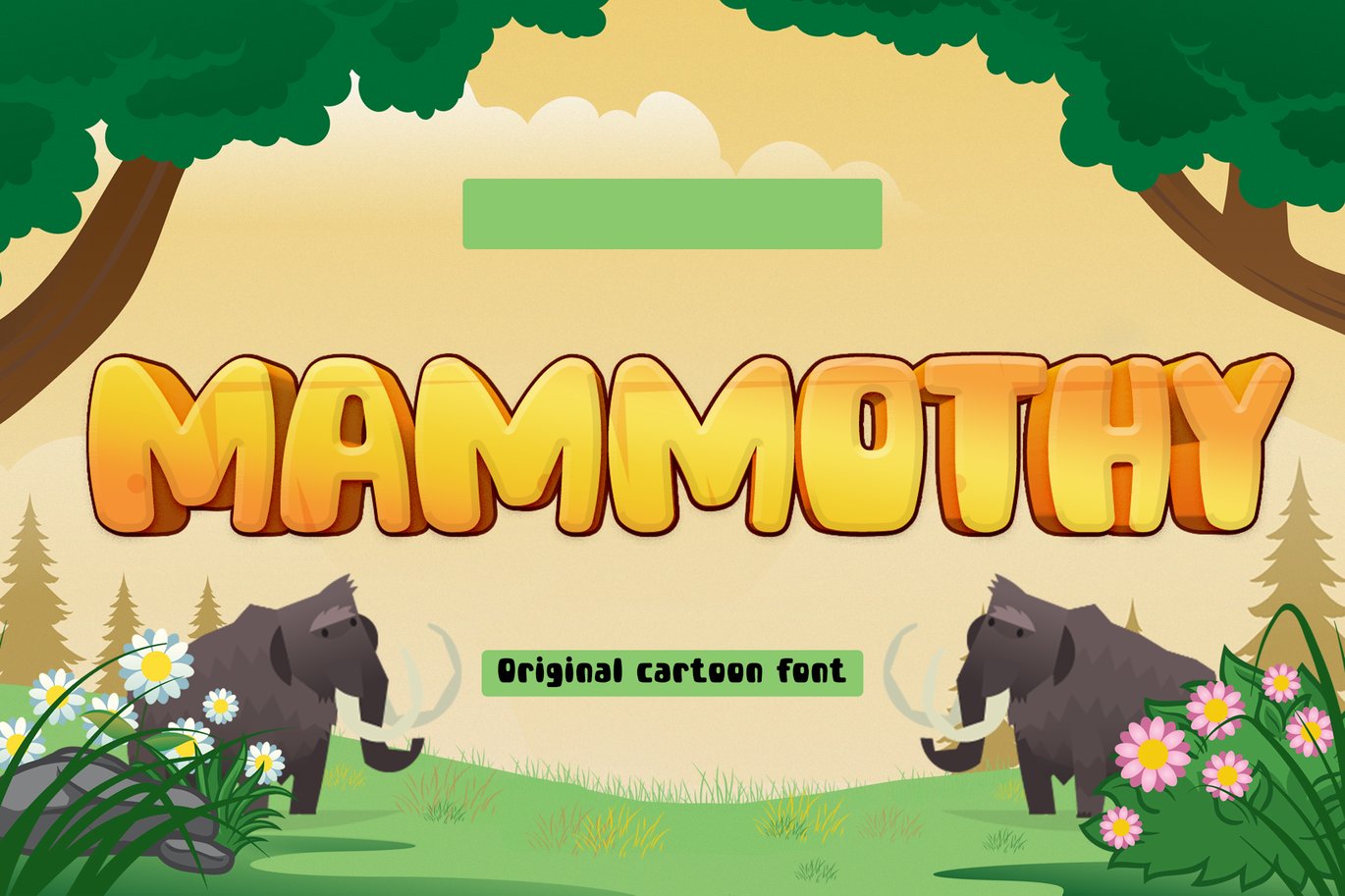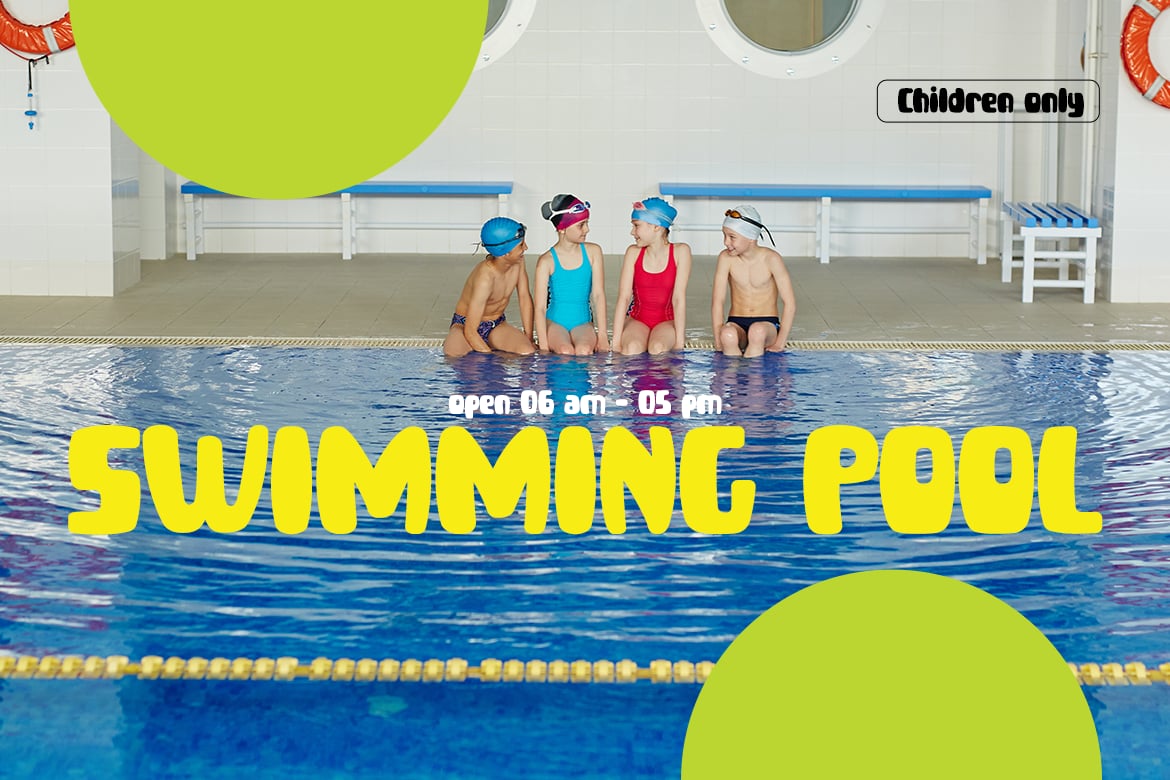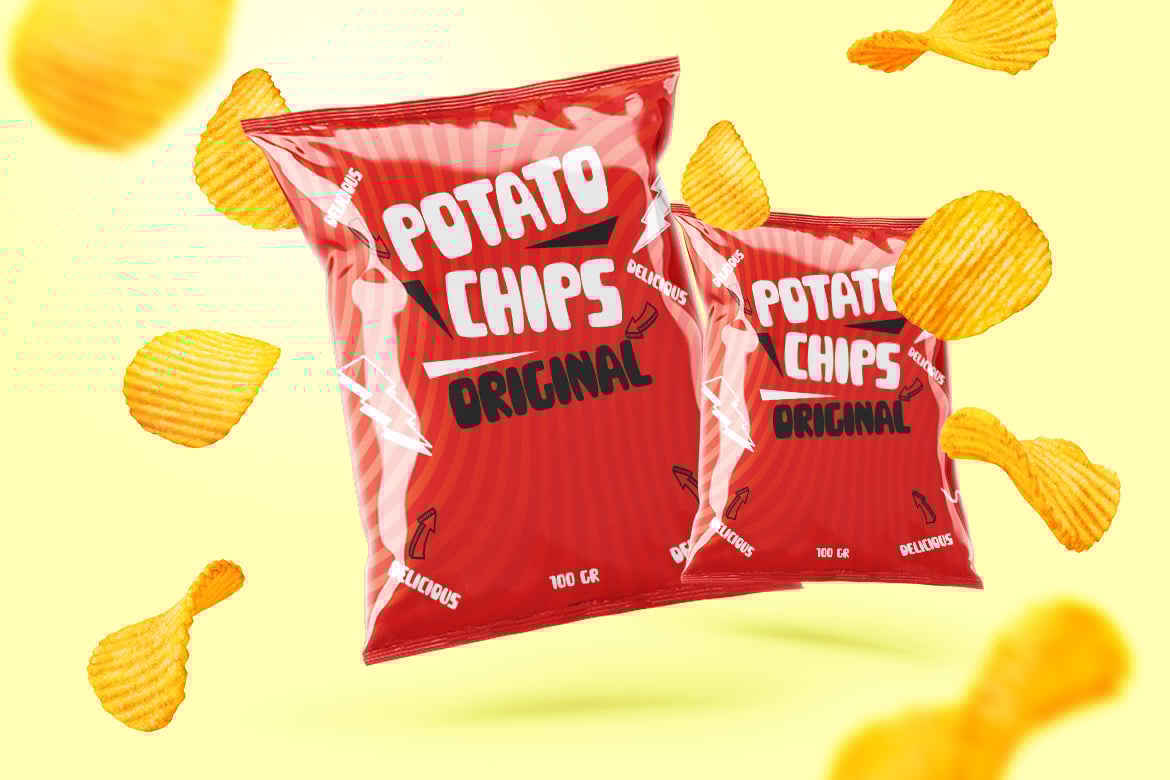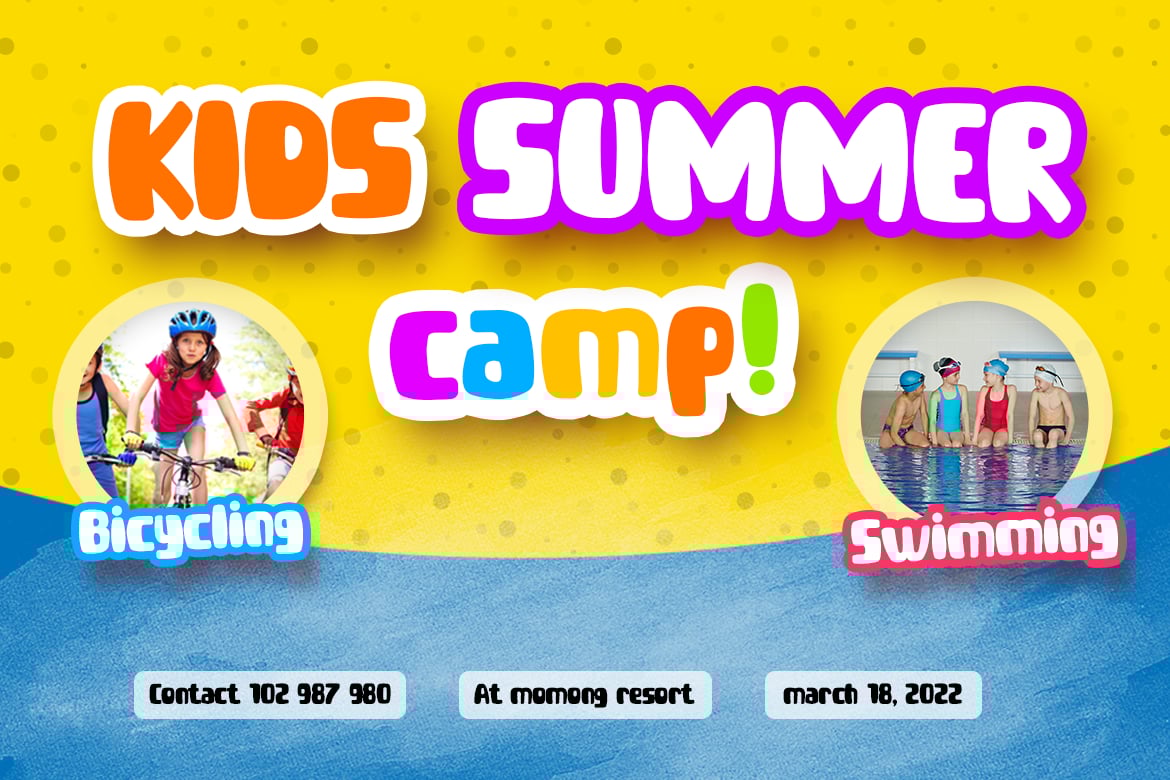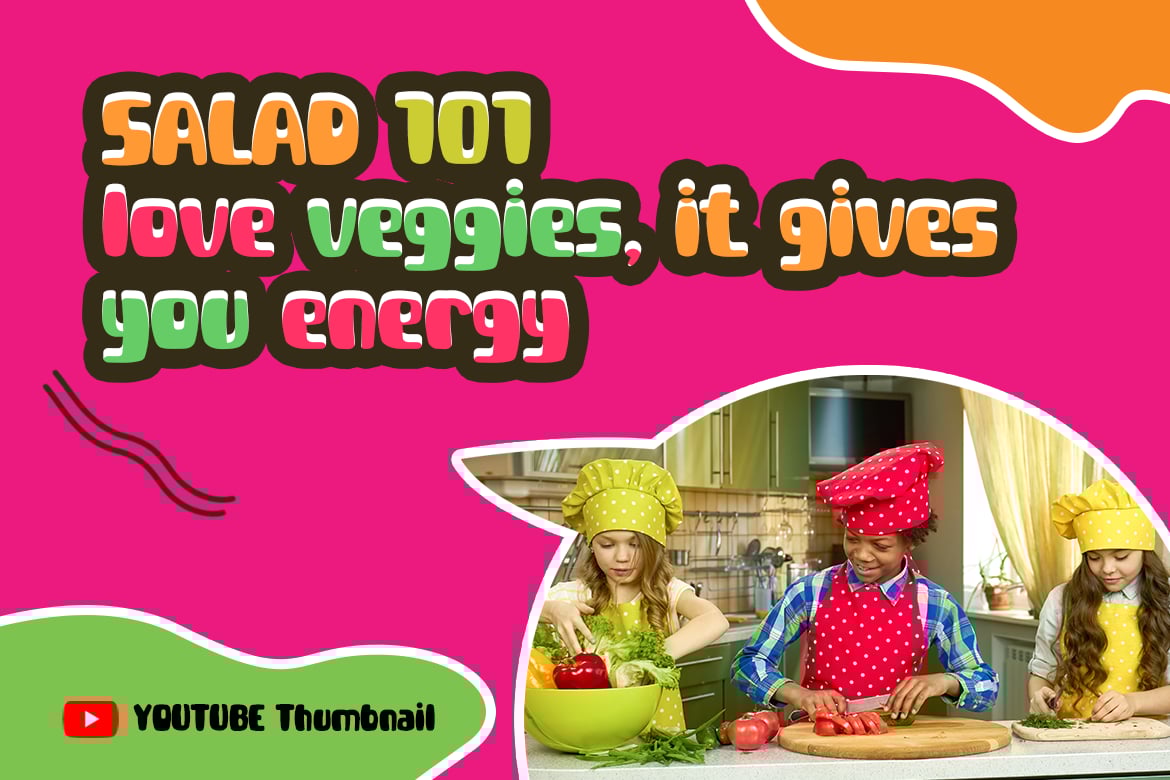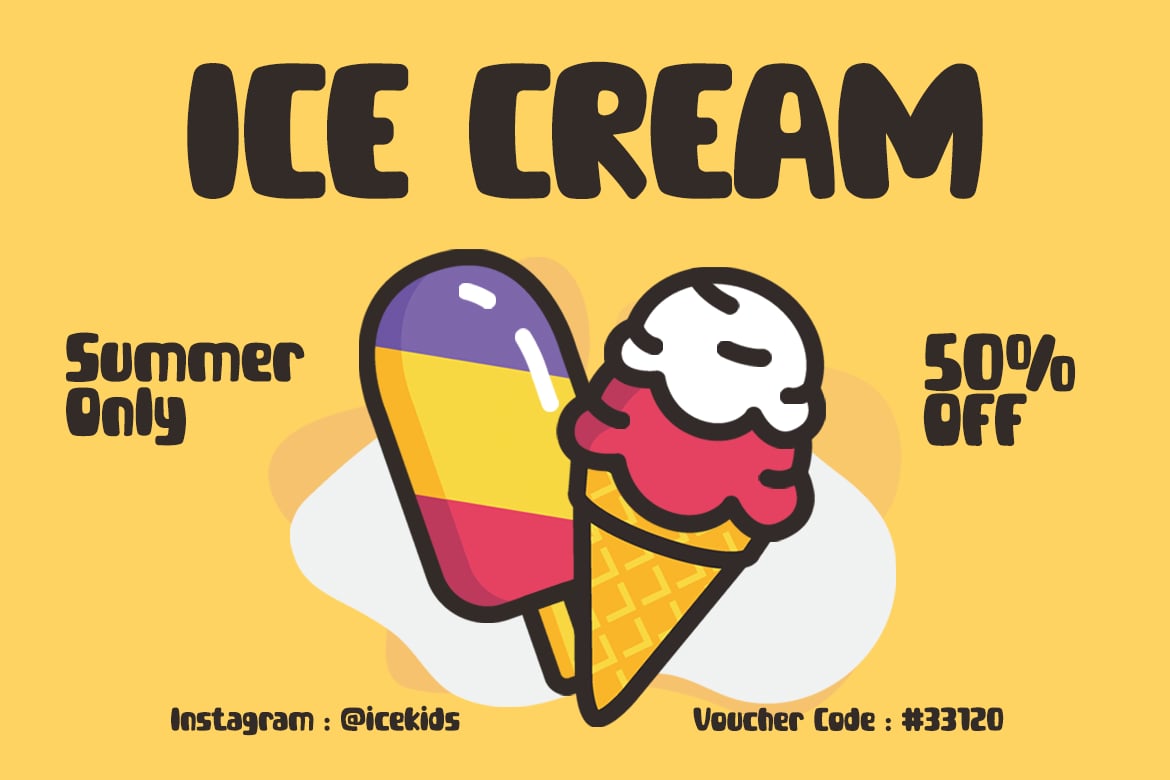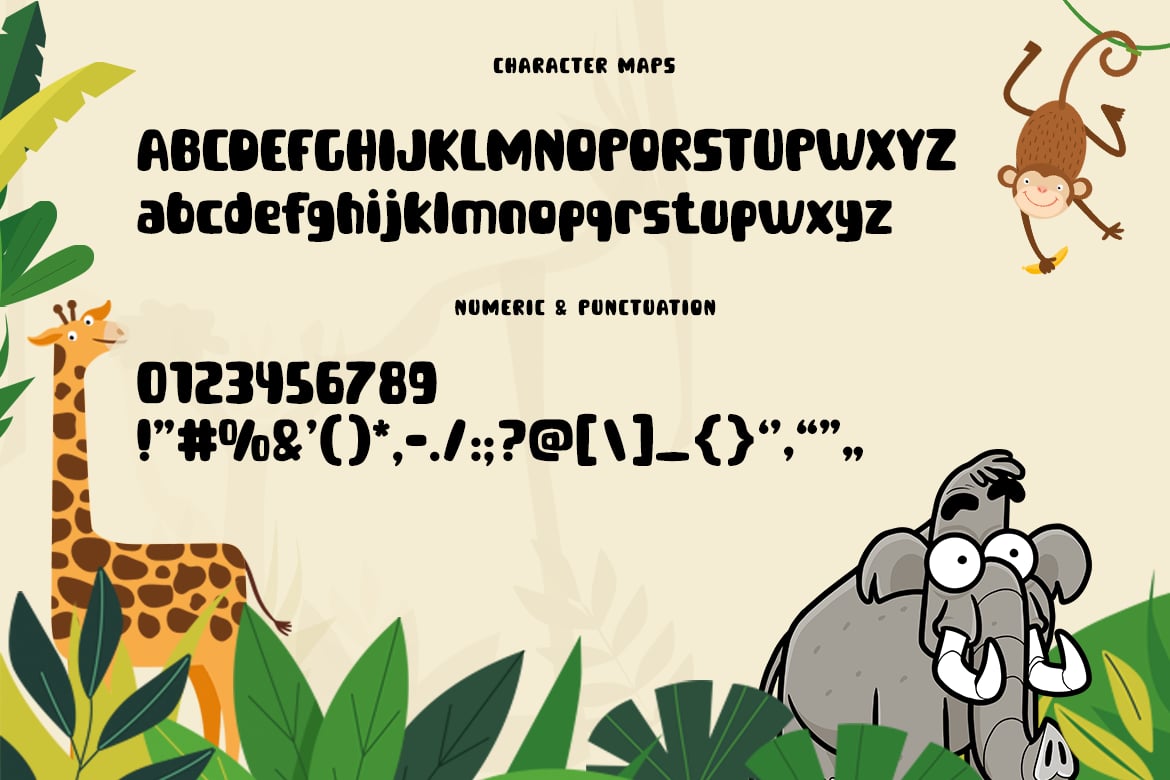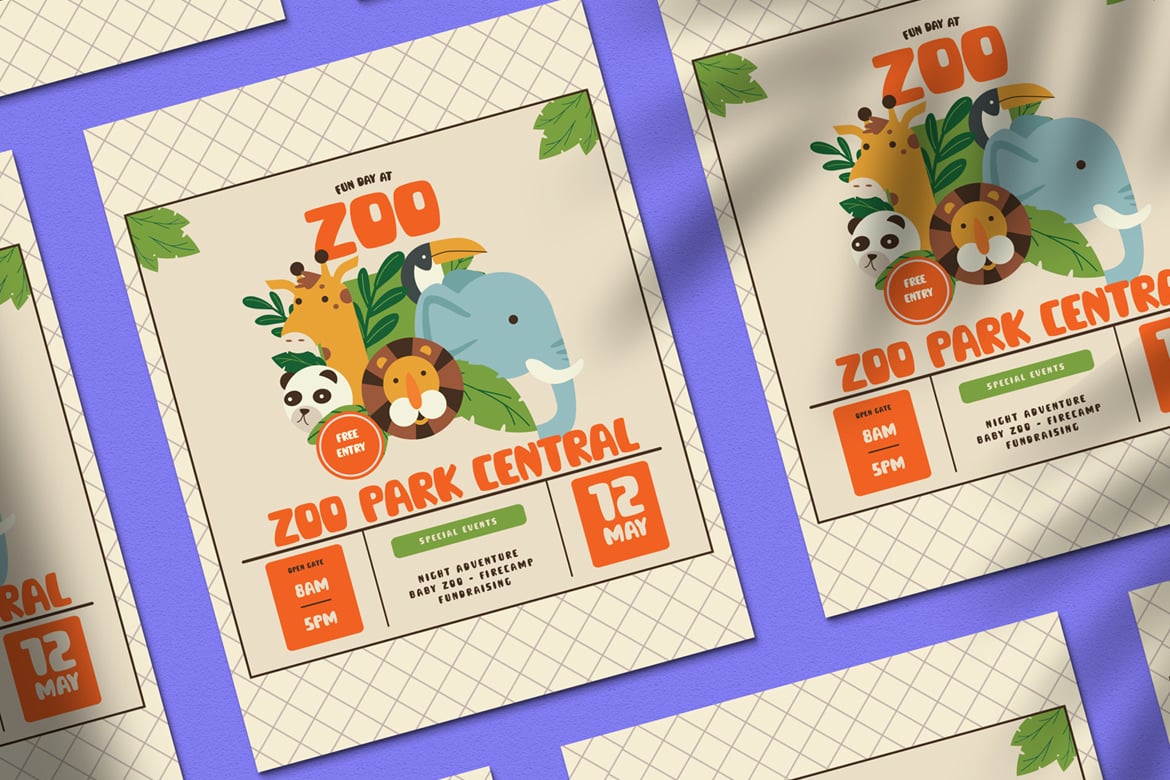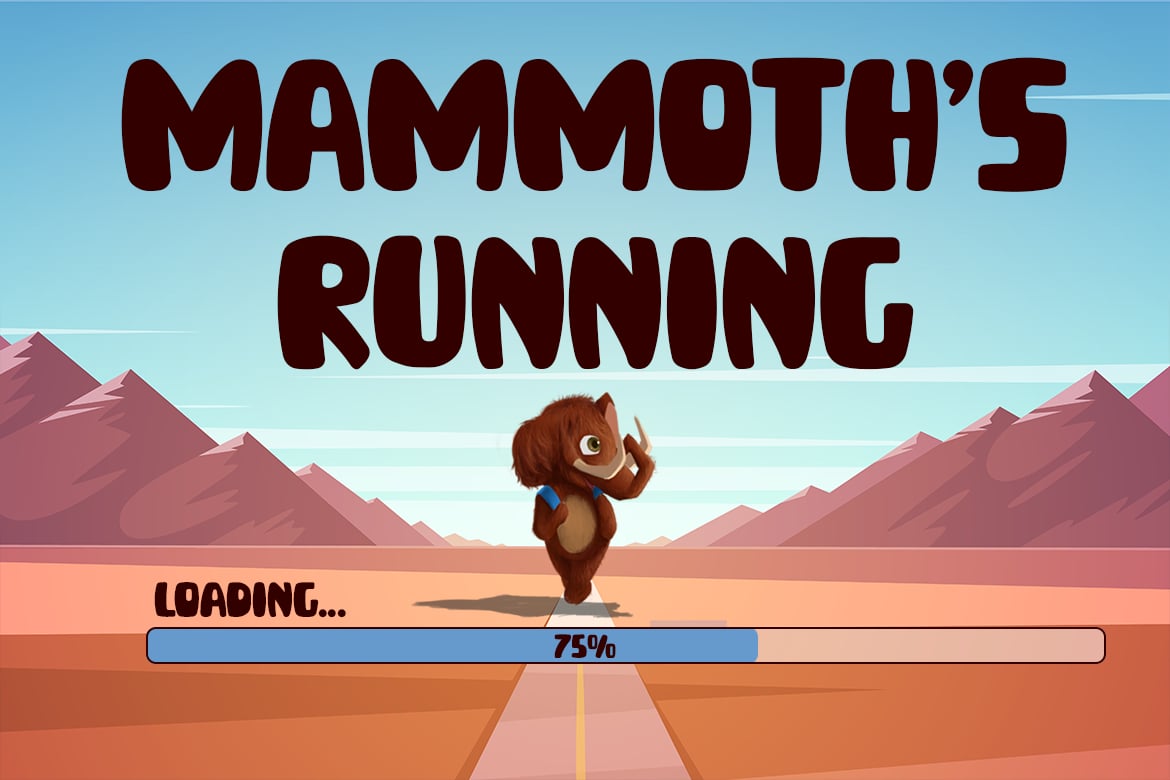
Cute Font – Mammothy
Mammothy is a cute font designed with children in mind. Its fun and gaming-inspired style makes it perfect for projects that capture joy and whimsy. Whether you’re creating logos, quotes, restaurant signage, badges, or playful posters, Mammothy adds a touch of humor and charm. Ideal for children’s events, greetings, packaging, branding, covers, and advertising, this font brings a smile to any design with its friendly and engaging appearance.